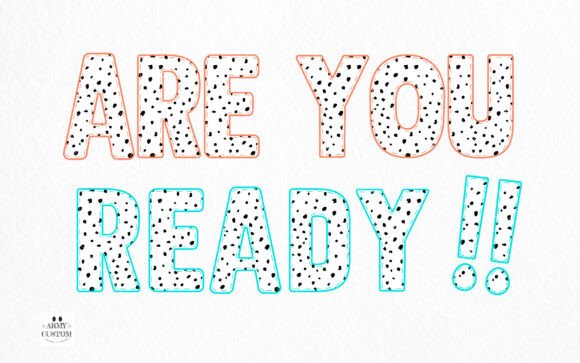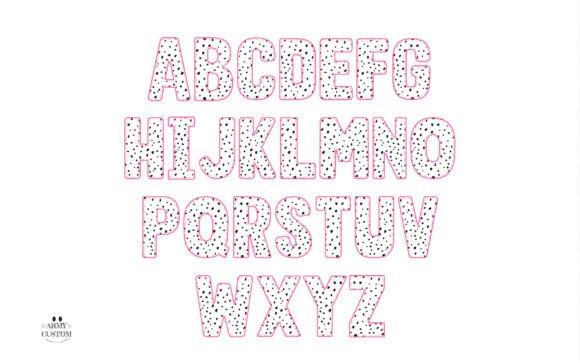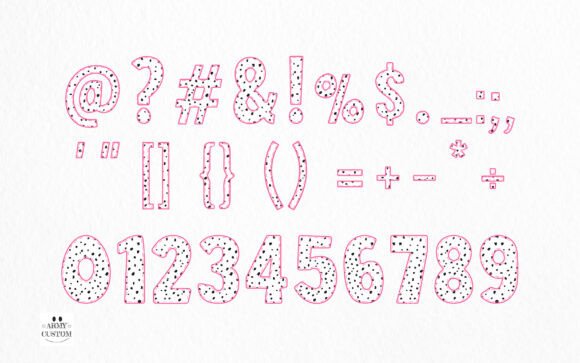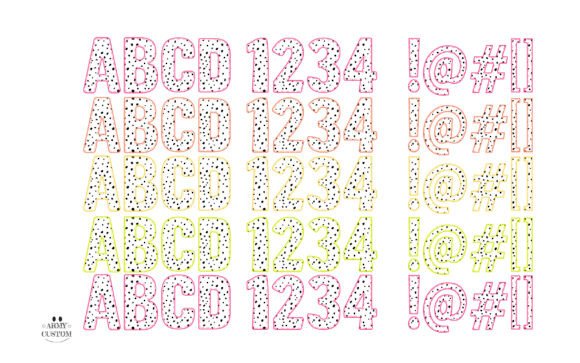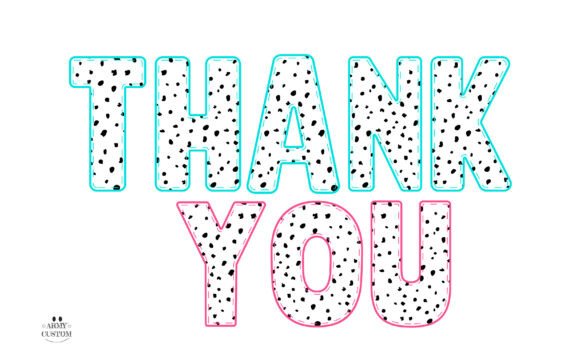
Unleash Whimsy and Wonder with Dalmatian Dots Font
Are you tired of using the same old fonts for your creative projects? Do you want to add a touch of playfulness and charm to your designs? Look no further than the Dalmatian Dots Font, a delightful and vibrant color font that’s sure to bring a smile to your face. In this article, we’ll dive into the world of Dalmatian Dots and explore how this enchanting font can elevate your designs and inspire your creativity.
Introducing Dalmatian Dots Bundle Font
The Dalmatian Dots Bundle font is a unique and captivating color font that’s designed to add a dash of whimsy and fun to your creative projects. With its playful and lively vibe, this font is perfect for designers, crafters, and makers who want to inject charm and personality into their work. Whether you’re creating cute theme endeavors, whimsical illustrations, or playful crafts, Dalmatian Dots is the perfect companion to help you bring your ideas to life.
The Power of Dotted Bundle
So, what makes Dalmatian Dots so special? The secret lies in its innovative use of dots to create a colorful and dynamic visual effect. The Dotted Bundle font is carefully crafted to provide a versatile and adaptable design that can be used in a wide range of applications, from digital designs to print materials. With Dalmatian Dots, you can add a pop of color and texture to your designs, making them stand out and leap off the page.
One of the most exciting things about Dalmatian Dots is the endless creative possibilities it offers. Whether you’re a seasoned designer or a crafty maker, this font provides a versatile and adaptable design that can be used in a wide range of projects, including:
- Cute theme designs, such as baby shower invitations, kids’ party decorations, and nursery decor
- Whimsical illustrations, such as cartoon characters, doodles, and zentangles
- Playful crafts, such as scrapbooking, card making, and DIY projects
- Digital designs, such as social media graphics, blog posts, and website headers
Why Choose Dalmatian Dots Font?
So, why should you choose Dalmatian Dots font for your creative projects? Here are just a few reasons:
- Unique and eye-catching design: Dalmatian Dots font is unlike any other font on the market. Its playful and colorful design is sure to grab attention and make your designs stand out.
- Versatile and adaptable: This font can be used in a wide range of applications, from digital designs to print materials.
- High-quality design: This font is carefully crafted to provide a high-quality design that’s both visually appealing and functional.
Tips and Tricks for Using Dalmatian Dots Font
Here are a few tips and tricks for getting the most out of Dalmatian Dots font:
- Experiment with different colors: One of the best things about Dalmatian Dots font is its use of color. Experiment with different color combinations to find the perfect look for your design.
- Mix and match with other fonts: Dalmatian Dots font pairs well with a wide range of other fonts. Try mixing and matching it with other fonts to create a unique and interesting design.
- Use it for headlines and titles: Dalmatian Dots font is perfect for headlines and titles, where its playful and colorful design can really shine.
In conclusion, Dalmatian Dots font is a unique and captivating color font that’s sure to bring a touch of whimsy and fun to your creative projects. With its playful and lively vibe, versatile design, and endless creative possibilities, this font is perfect for designers, crafters, and makers who want to inject charm and personality into their work. So why wait? Harness the power of Dotted Bundle and let your imagination take flight with Dalmatian Dots font.